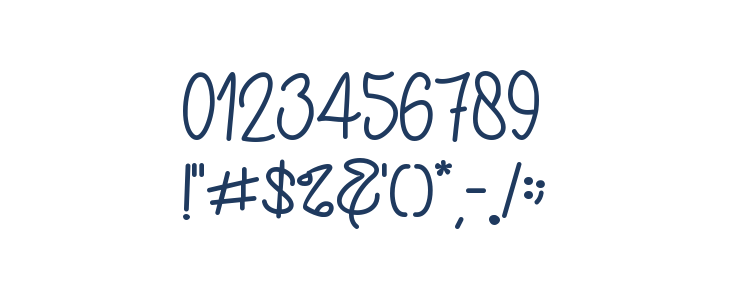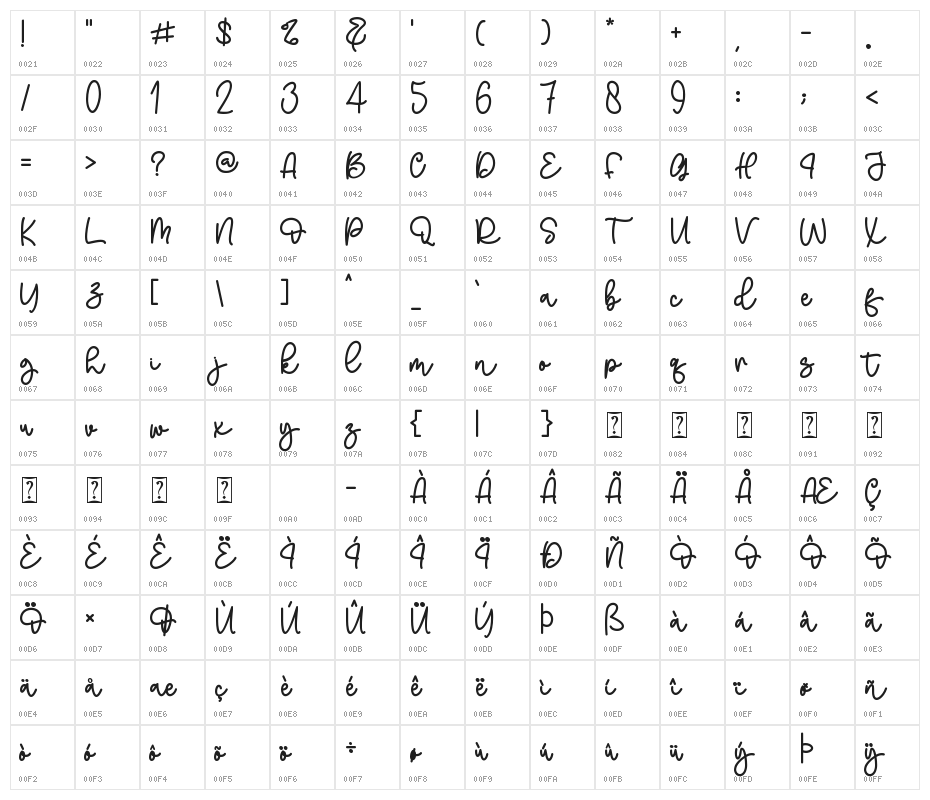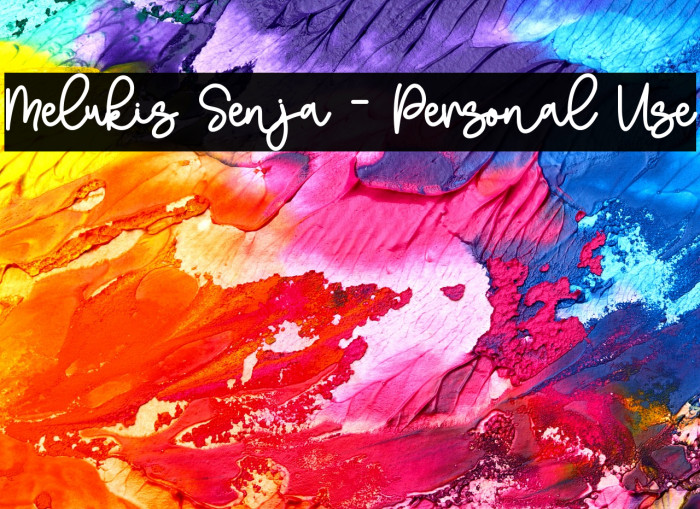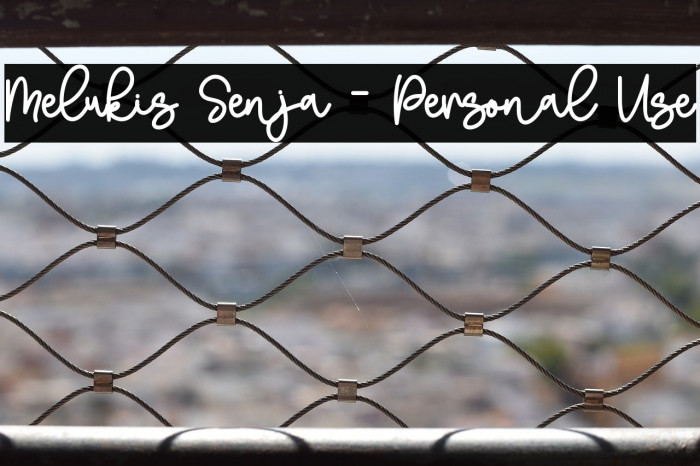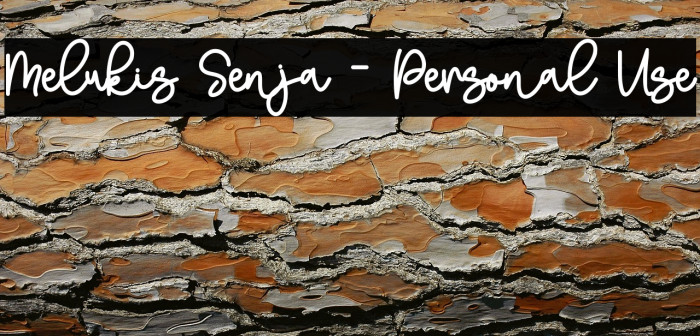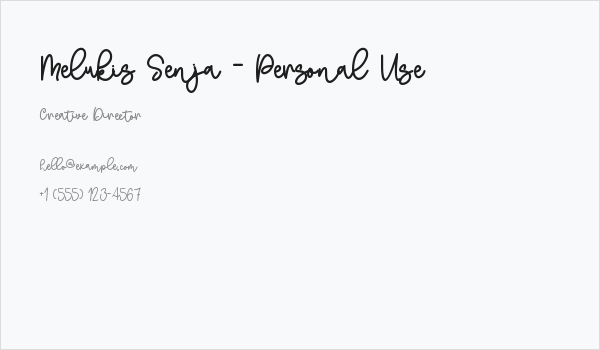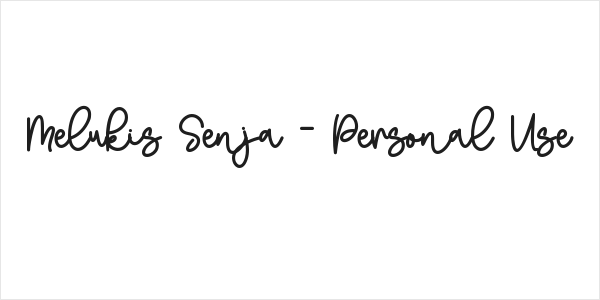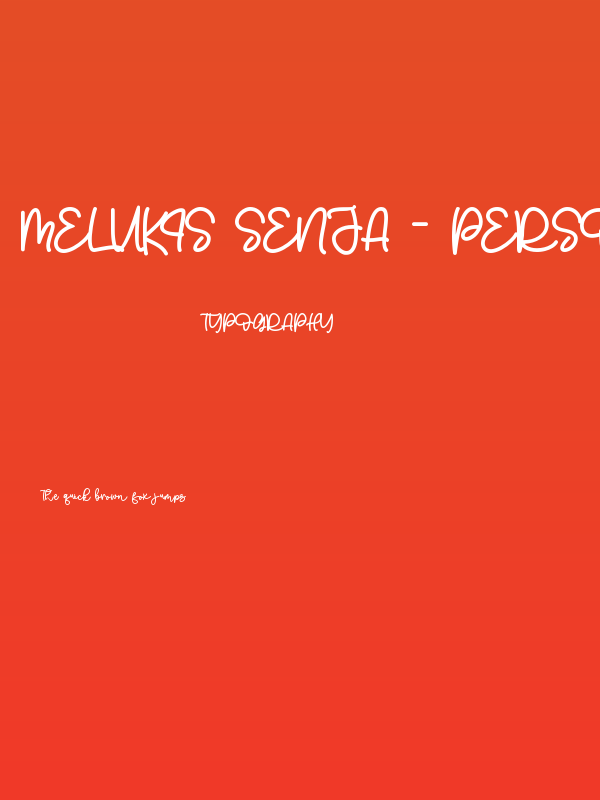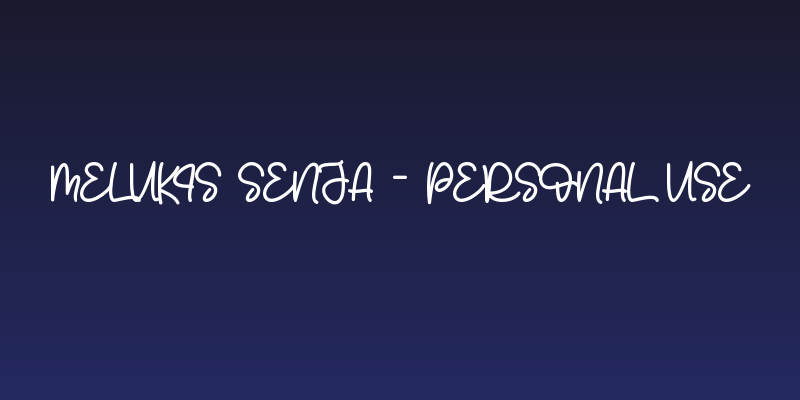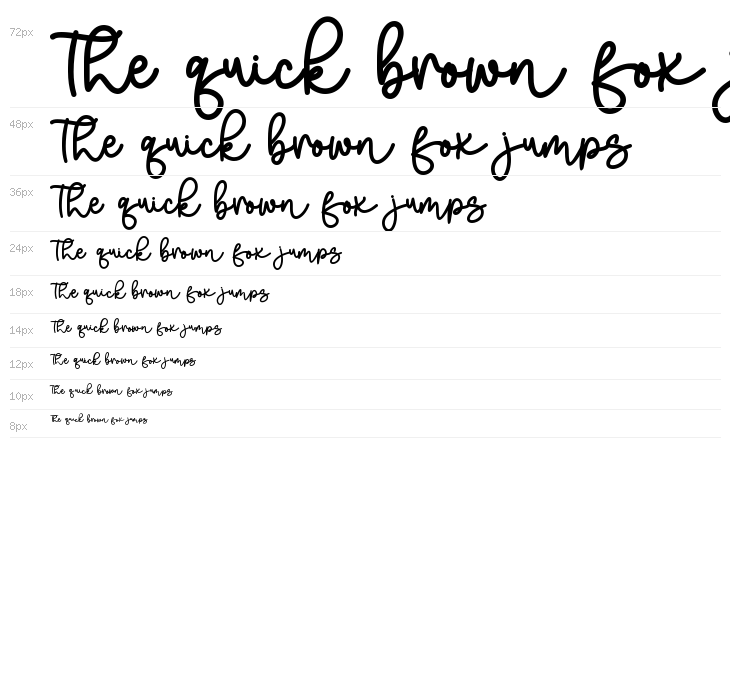
Melukis Senja - Personal Use Font
Melukis Senja - Personal Use Description
This font features a playful and casual handwritten style, characterized by its fluid and connected letterforms. The uppercase letters are bold and expressive, while the lowercase letters maintain a consistent flow, enhancing readability. The numerals are rounded and maintain the same playful aesthetic as the letters. Special characters are designed to complement the overall style, adding versatility for various uses. The font's strokes are consistent in width, providing a balanced and harmonious appearance. Its informal and friendly nature makes it suitable for creative and personal projects.